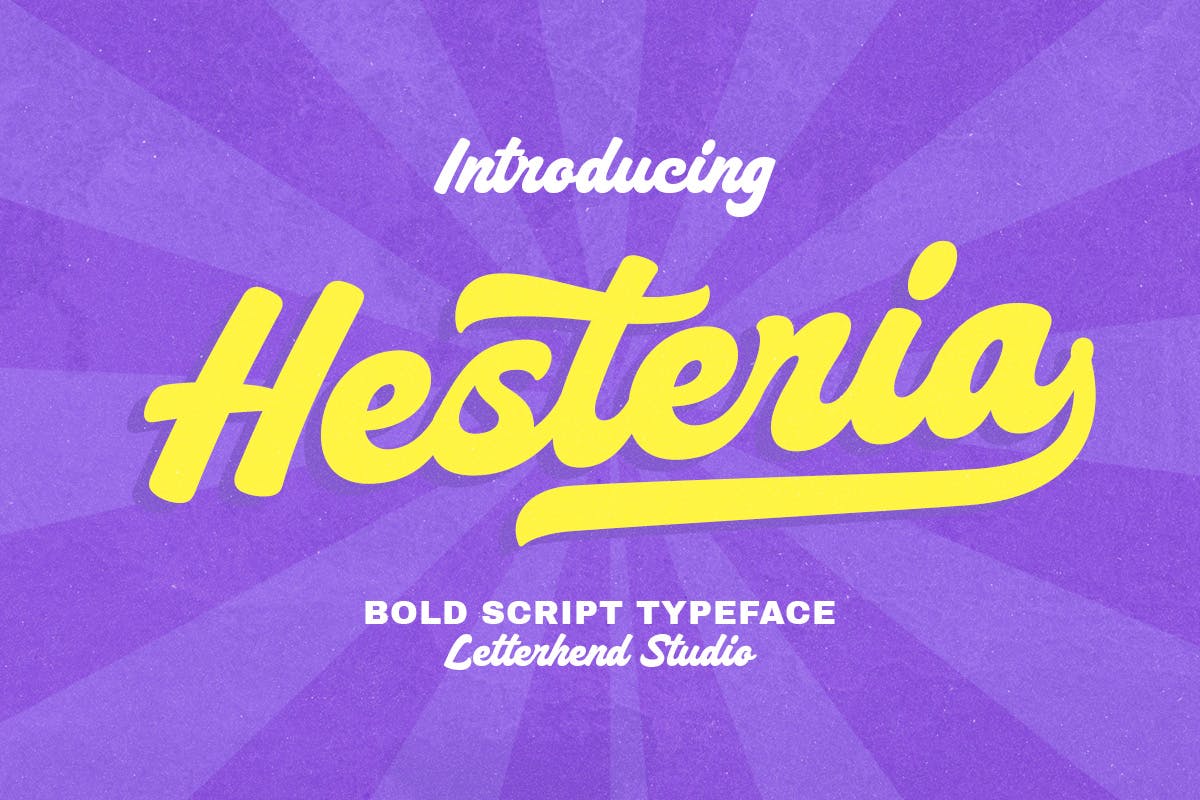
Hesteria
Hesteria is a versatile font designed to enhance a variety of typographic projects. With its normal spacing and adaptability to any size, it provides a perfect balance of readability and style. This font allows users to express their creativity while maintaining clarity, making it an excellent choice for both digital and print applications.